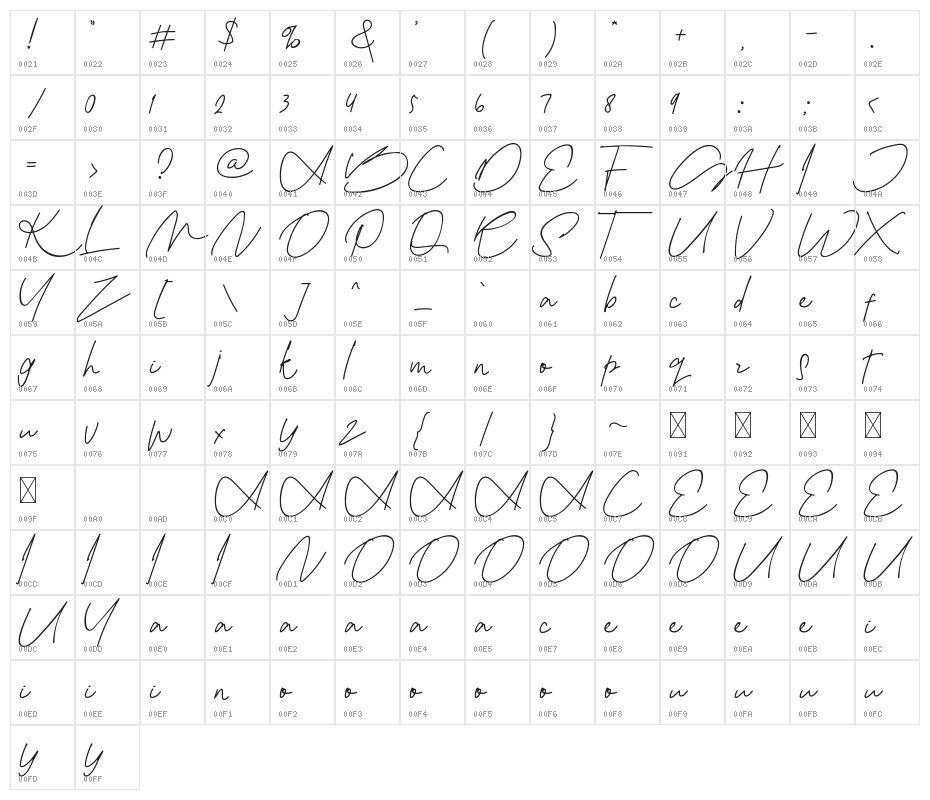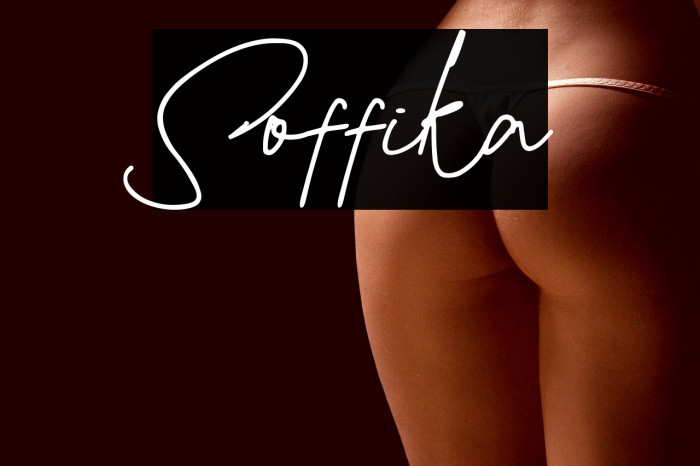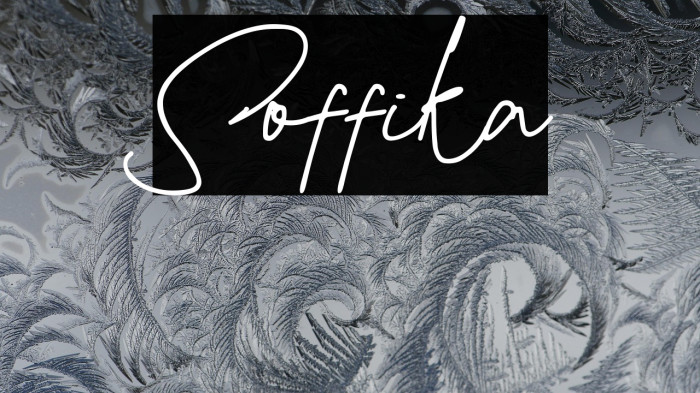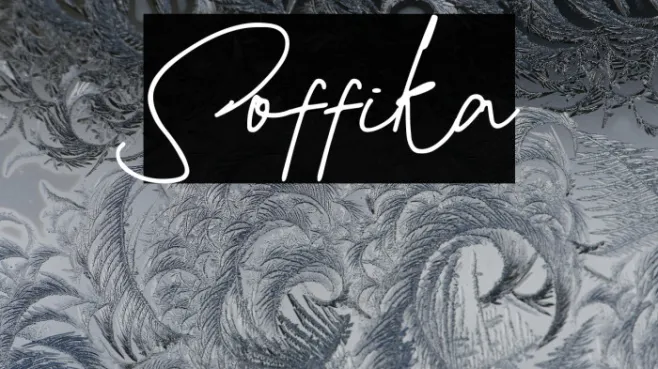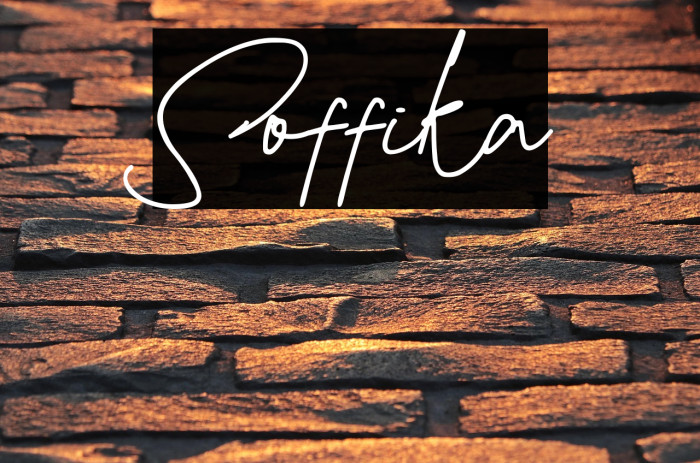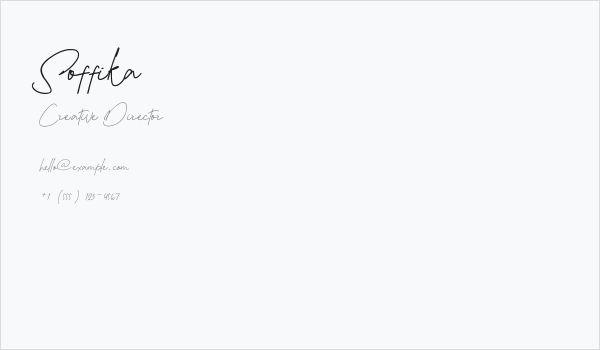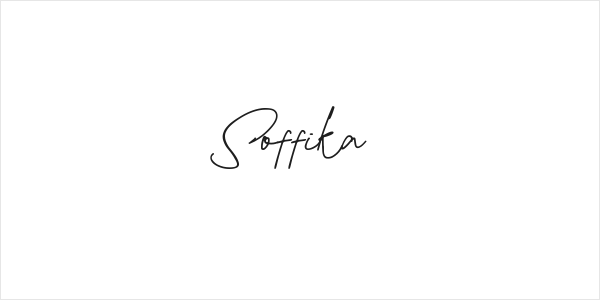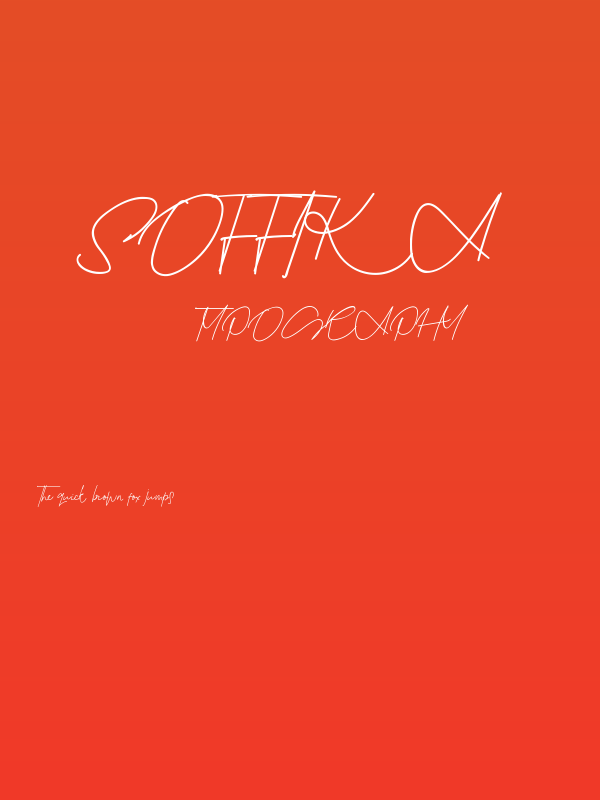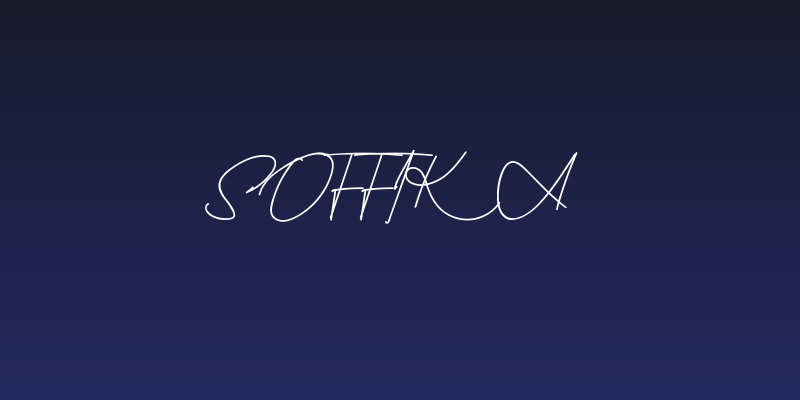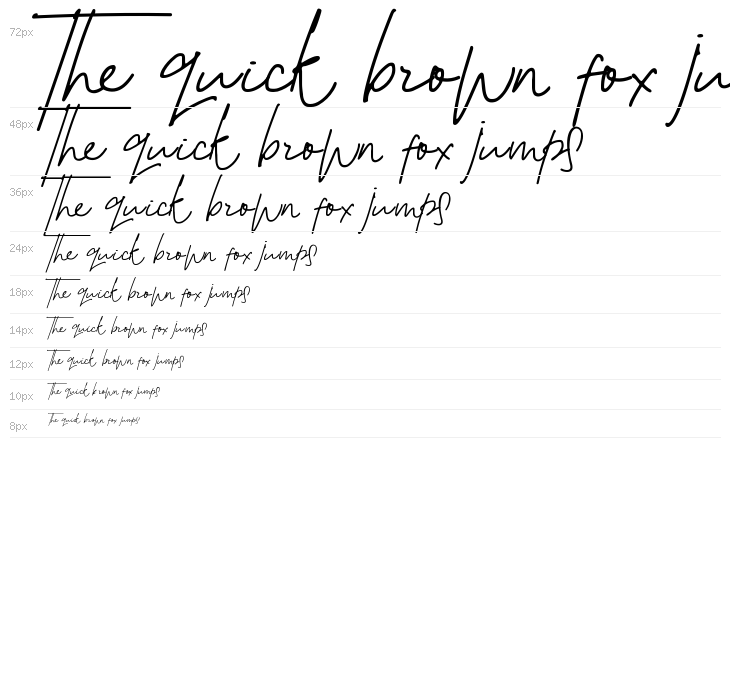
Soffika Font
Soffika Description
This font exudes a casual, handwritten style with a flowing, cursive appearance. The uppercase letters are elegantly connected, giving a sense of fluidity and motion. The lowercase letters maintain a consistent slant, enhancing the script-like quality. Numbers and special characters are crafted with the same attention to detail, ensuring a cohesive look across all elements. The strokes vary in thickness, adding a dynamic and lively feel to the text. This font is perfect for projects that require a personal touch, such as invitations, greeting cards, or artistic branding.
| Overall Style | Casual, Artistic |
| Proposed Projects | Ideal for invitations, greeting cards, artistic branding, and personal notes. |